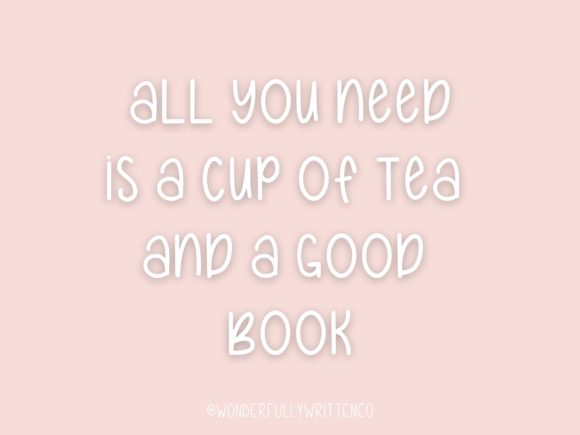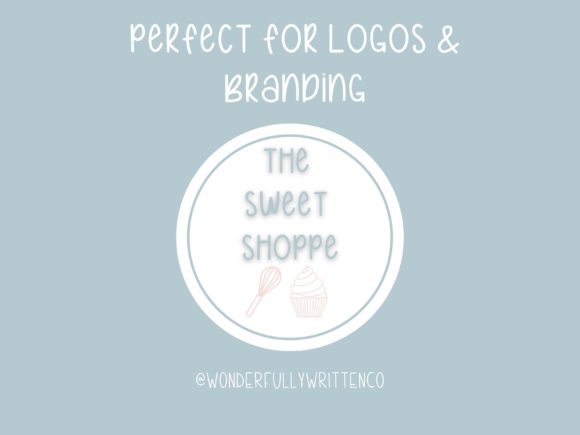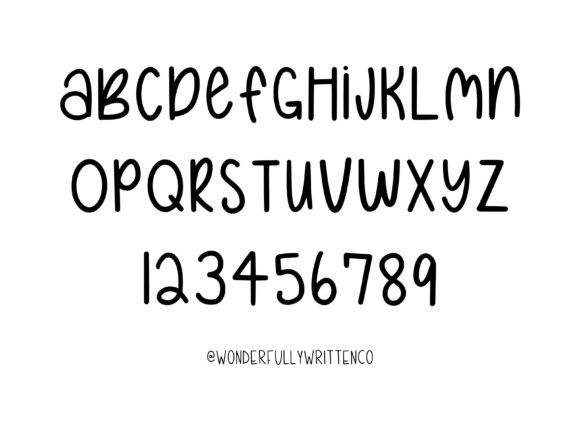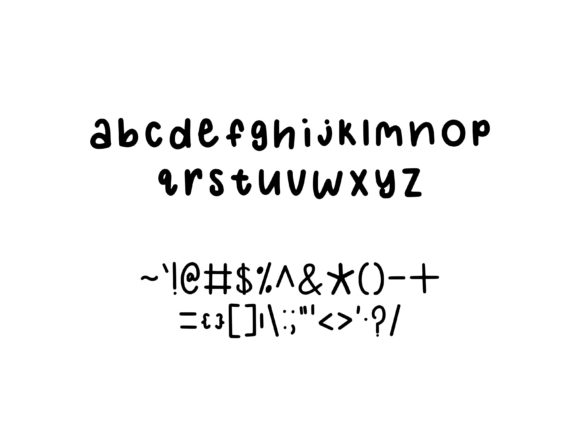
Sweet Tea Font
About Sweet Tea Font
Sweet Tea is a fun handwritten font perfect for all of your branding and crafting projects! Use it for logos, stationery, apparel designs, invitations, branding, product packaging, and so much more!